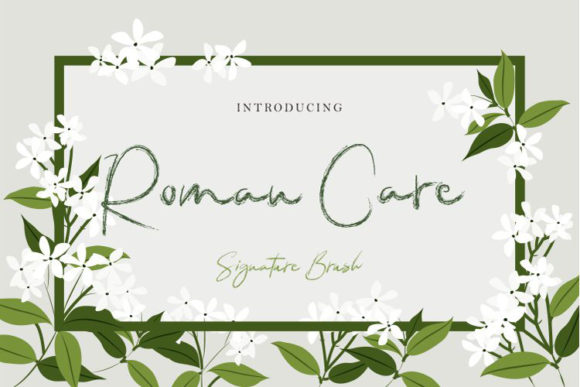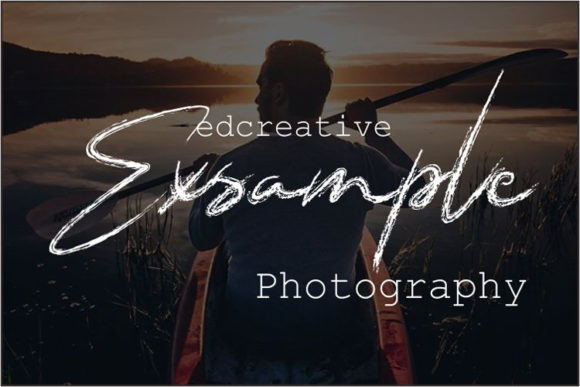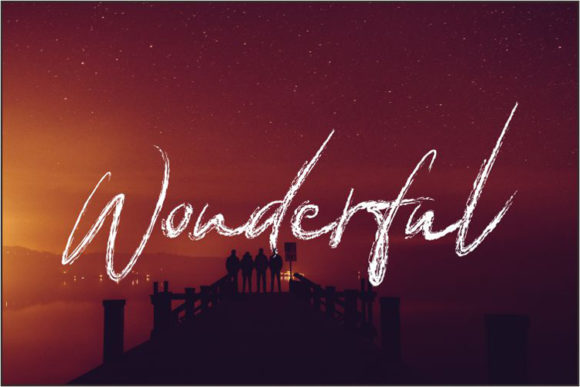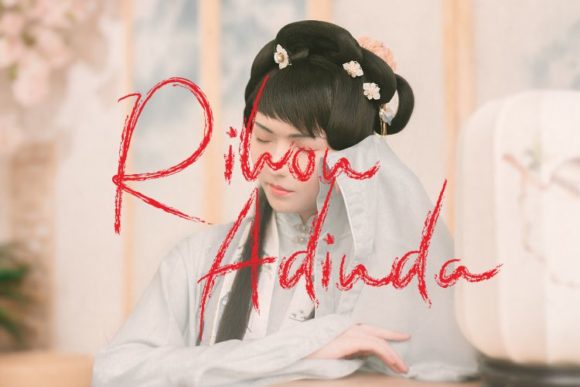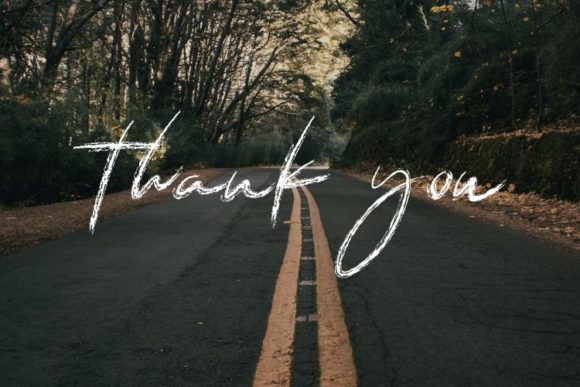
Roman Care Font
About Roman Care Font
Roman Care is a beautiful and carefully crafted handwritten font with a bold feel. It will turn any design project into a stand out!